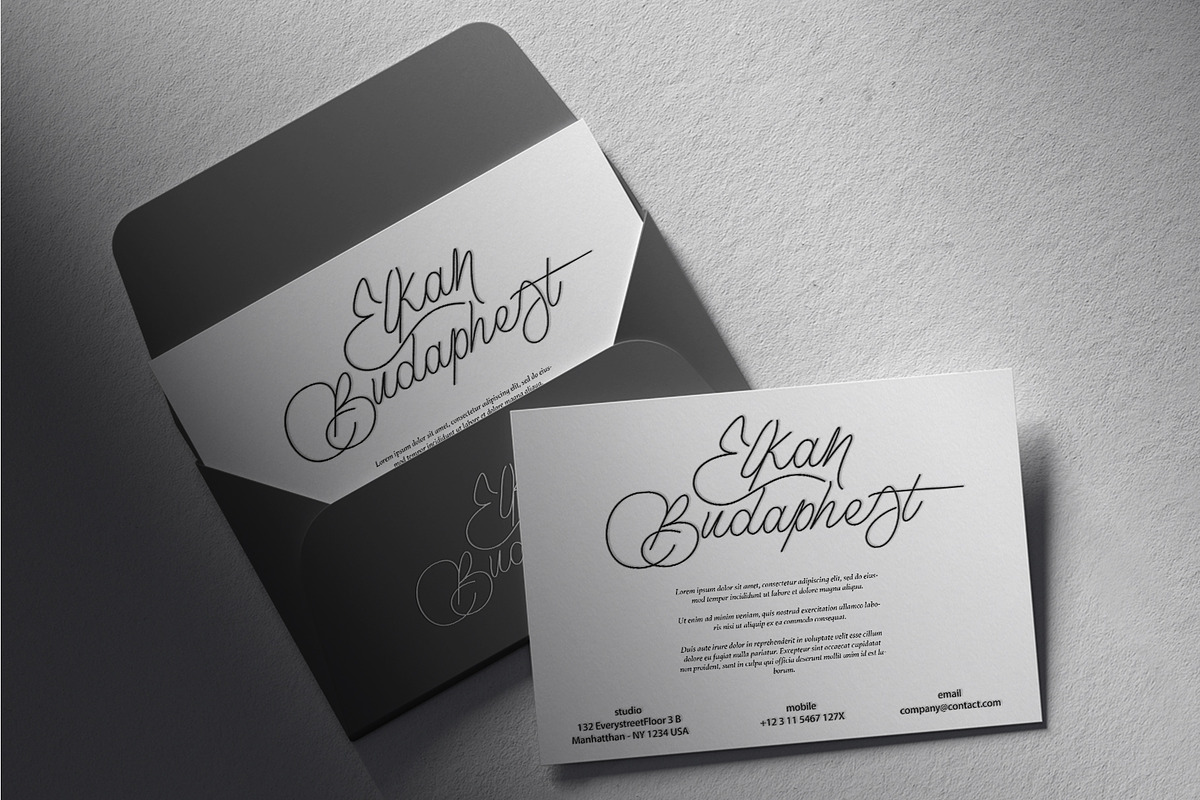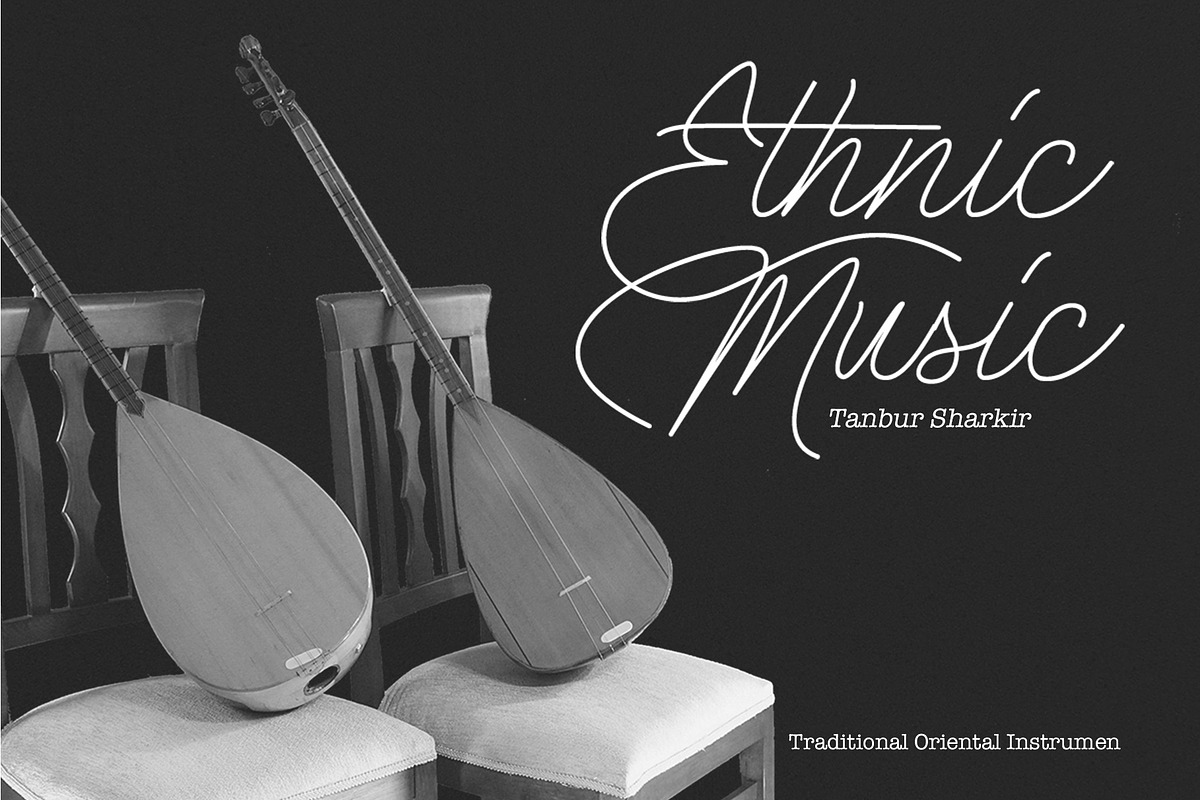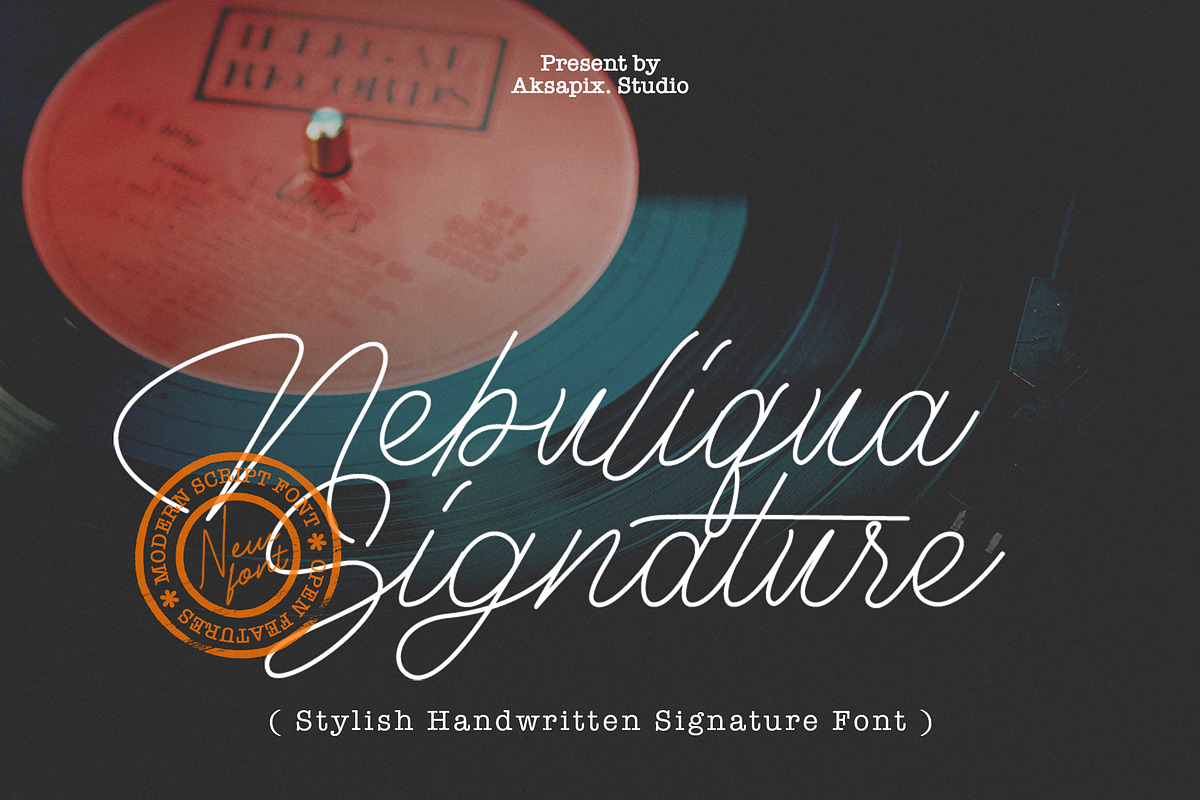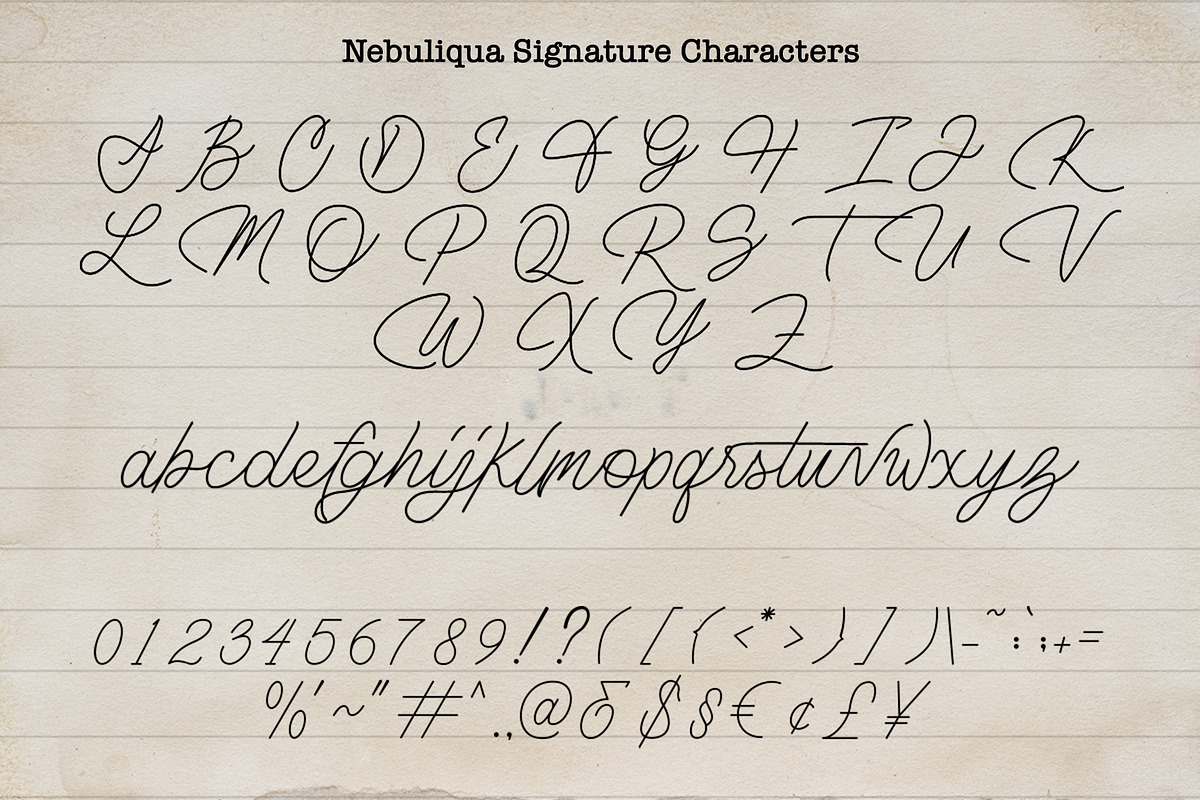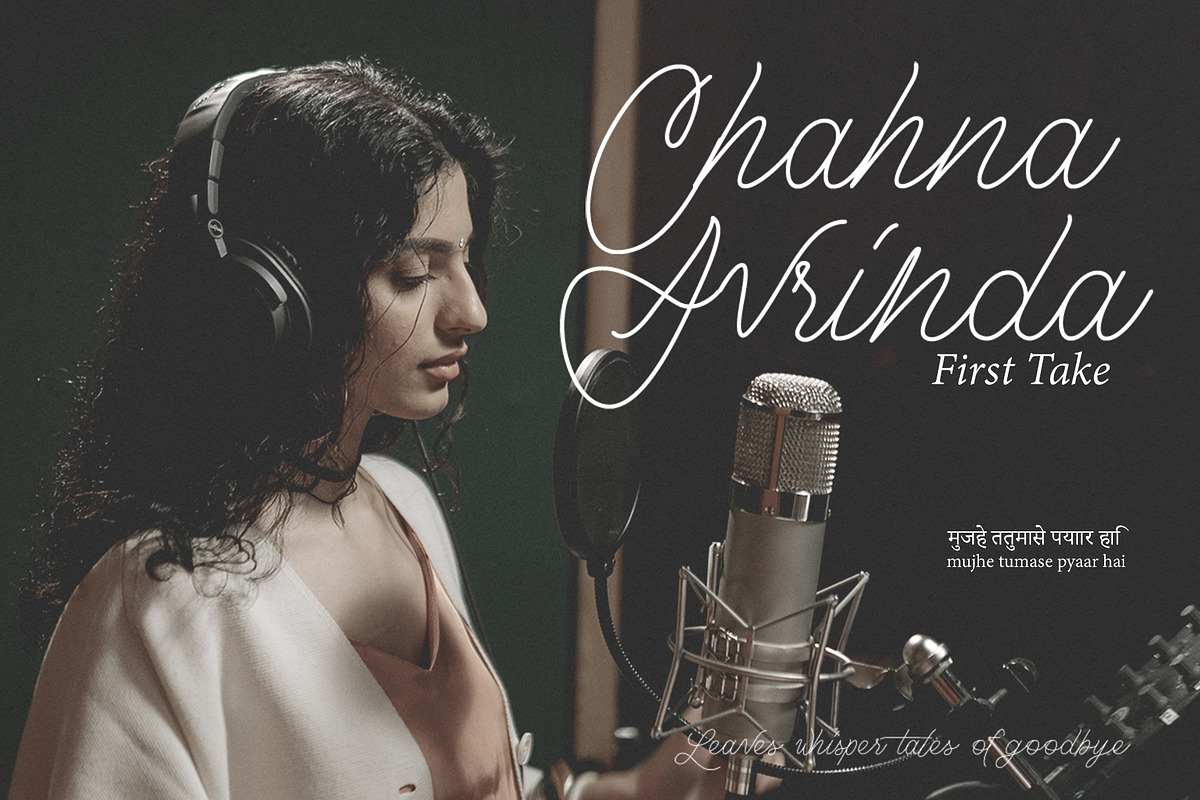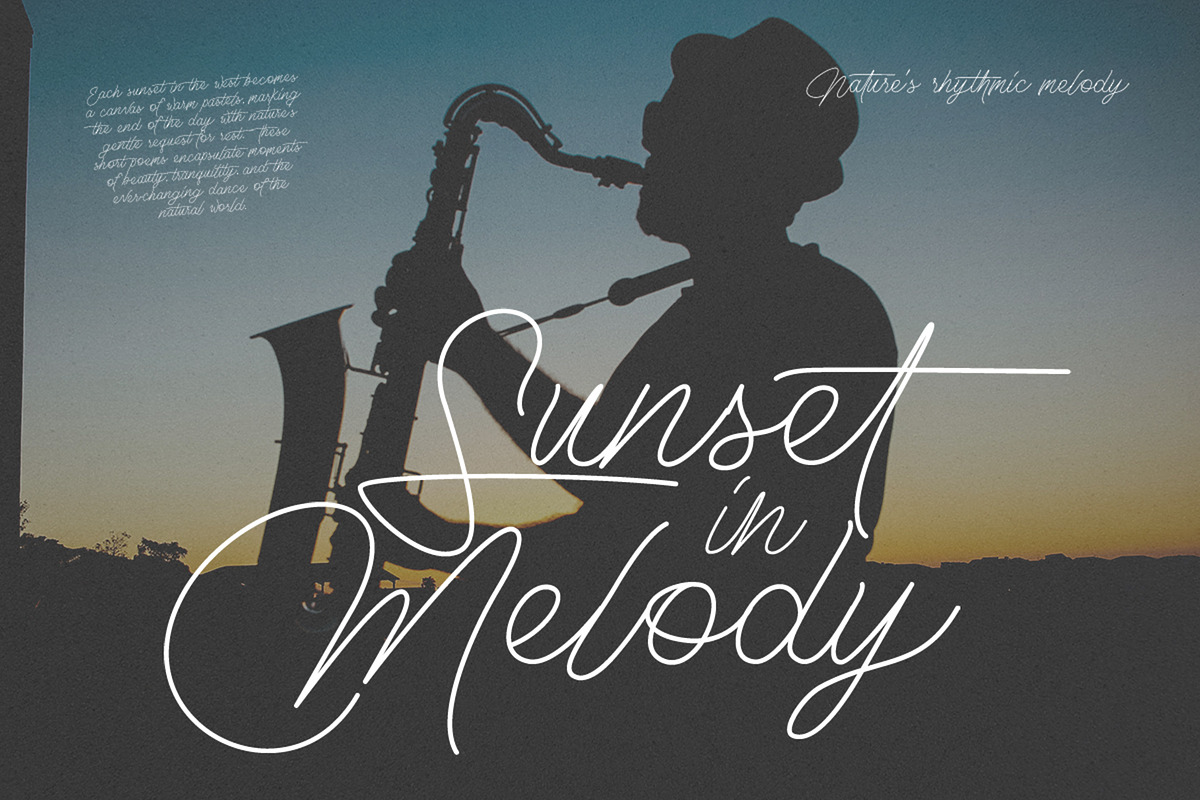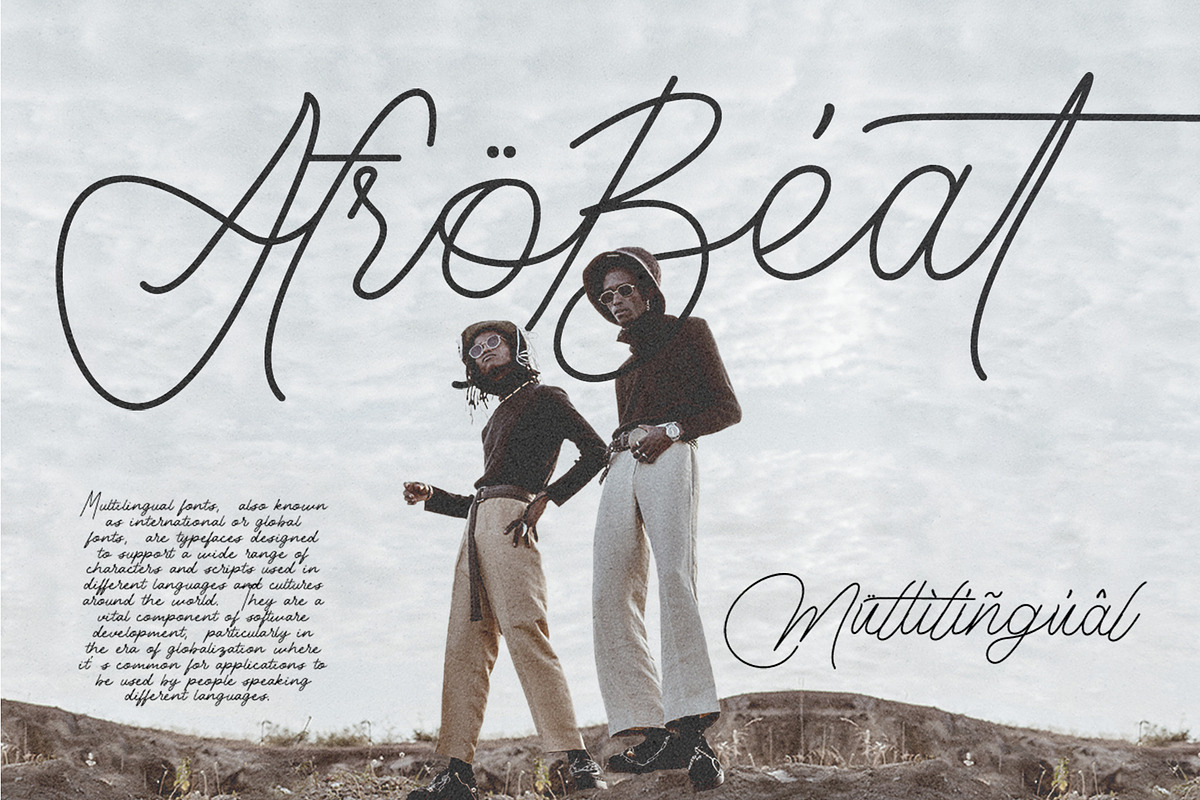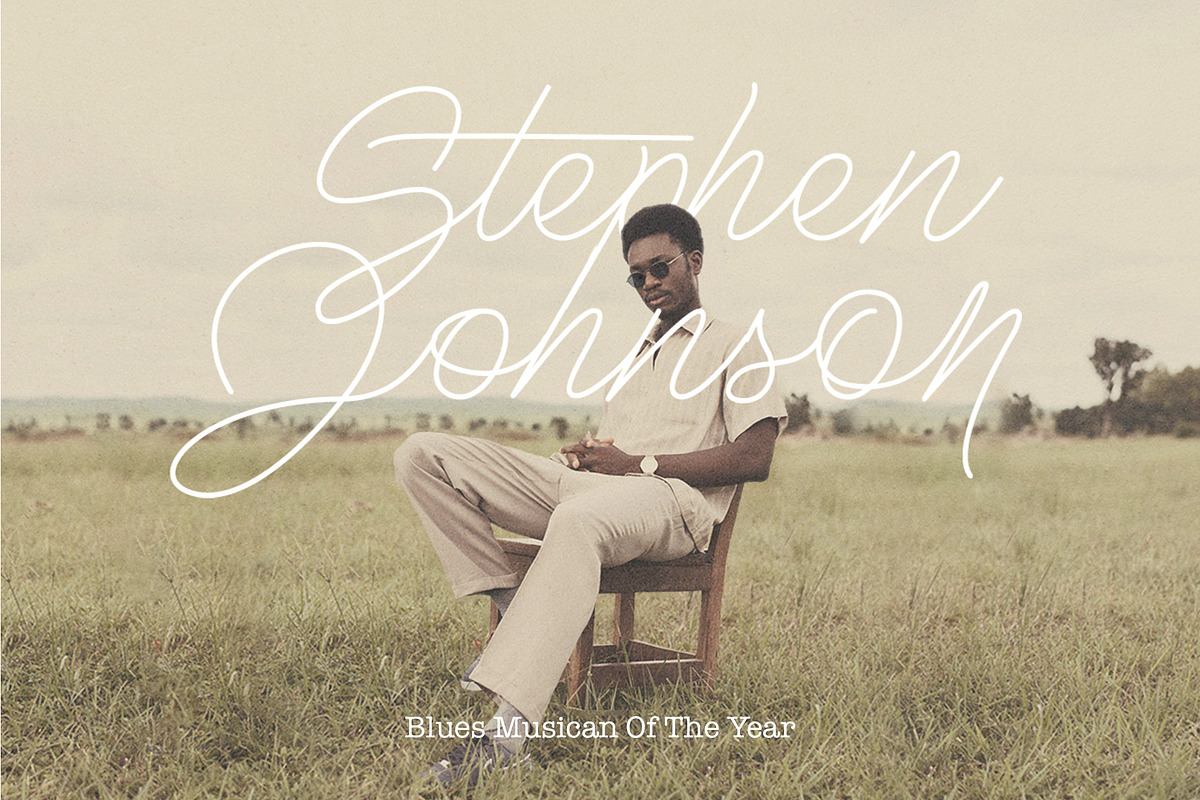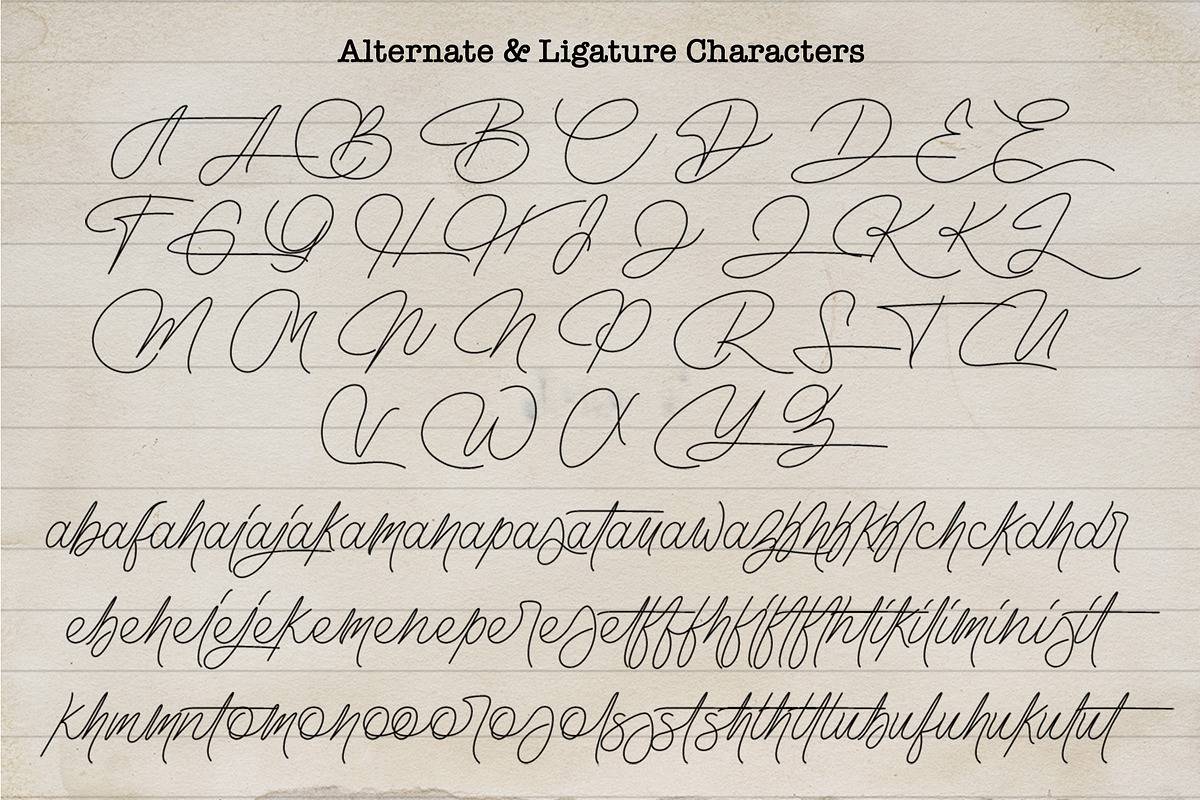
Nebuliqua - Stylish Signature Font
Nebuliqua - Stylish Signature Font is a signature font with a monoline style. With its exclusive design, this font is suitable for a variety of design purposes, from company logos to music festival posters, album covers, greeting cards, social media content, and more.
Punctuation & Numbers
Stylistic Alternates: Enhance your designs with the option to choose from stylistic alternates, allowing you to experiment with different letterforms and create a unique visual impact.
Standard Ligatures: The inclusion of ligatures adds a seamless and natural flow to your text, ensuring a smooth and aesthetically pleasing look.
With Nebuliqua, each of your design projects will receive a unique and classy touch, ensuring that your message and brand identity are conveyed with style. Utilize this font to bring sophistication to every visual design you create.